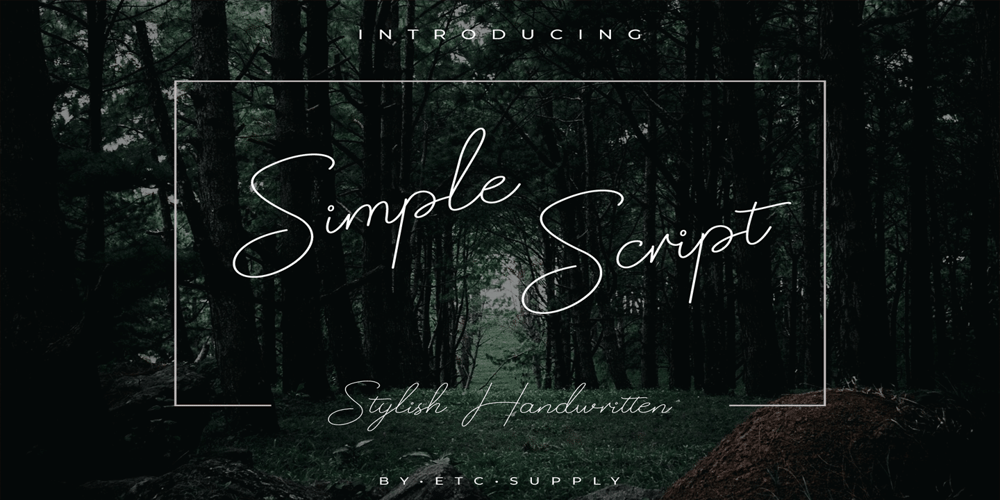
Simple Script Font Family was designed by Ilham Nashrul Huda and published by Etcsupply. Simple Script contains 2 styles and family package options. Simple Script FontA handwritten script font with 278 characters and 7 swash character designed by Ilham Nashrul Huda, and published by Etcsupply ._________________________Simple Script Font perfect for:logos, branding, wedding invitations, business cards, greeting cards, posters, magazines, social media, planner prints and others.